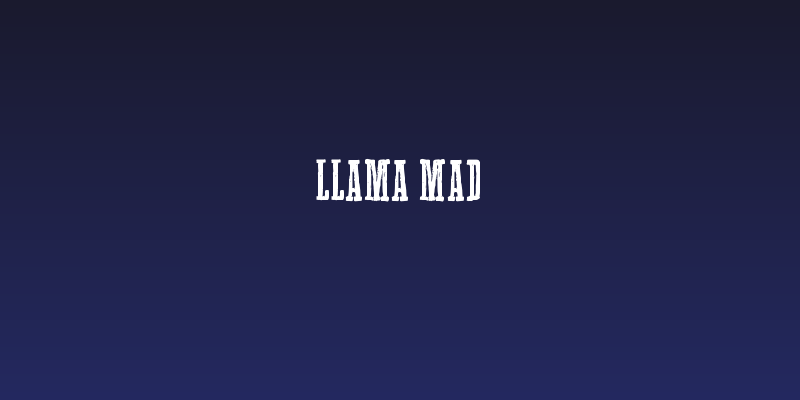
Llama Mad Font
Llama Mad Description
This font features a bold, distressed style with a vintage, western-inspired aesthetic. The characters are heavily textured, giving them a rugged and worn appearance, reminiscent of old woodblock prints or posters. The uppercase and lowercase letters maintain a consistent height, with slightly condensed proportions that enhance the boldness of the design. The numbers and special characters follow the same stylistic approach, ensuring uniformity across all glyphs. This font's unique character is perfect for creating a strong visual impact.
| Proposed Projects | Ideal for posters, branding, packaging, and any project requiring a vintage or rugged aesthetic. |